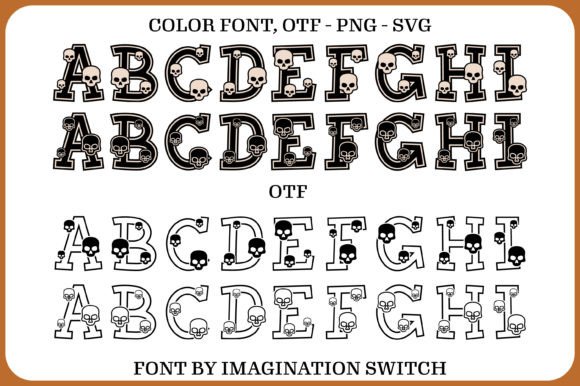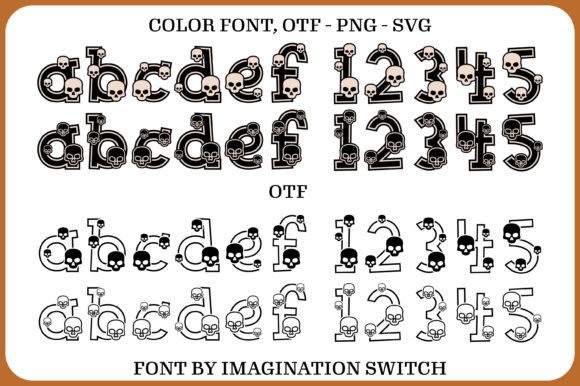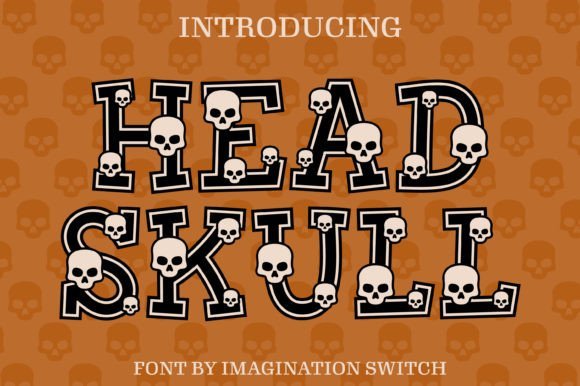
Introduction to Head Skull Font
This font is a captivating typographic creation that utilizes intriguing colors to enhance its visual appeal.
With a complete set of characters, including uppercase, lowercase, and numbers, this font has been meticulously designed to provide flexibility across various types of projects Head Skull is suitable for a wide range of purposes, including print designs, web designs, promotional materials, and more.